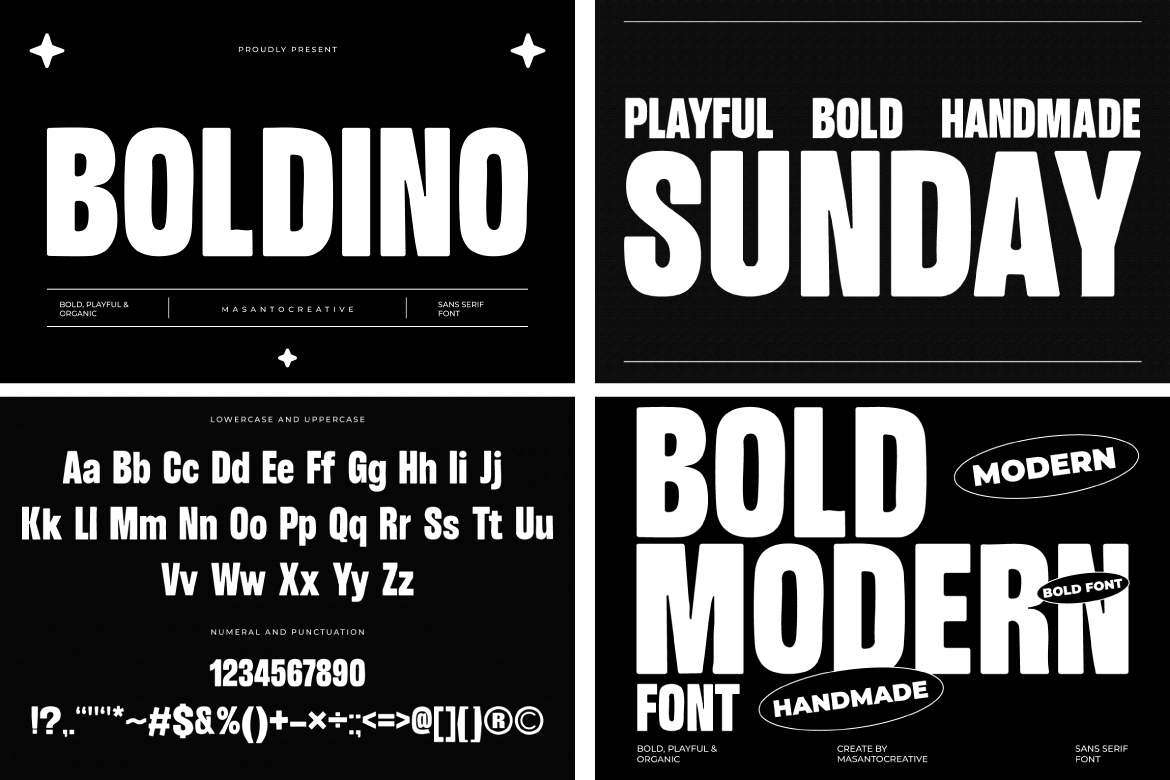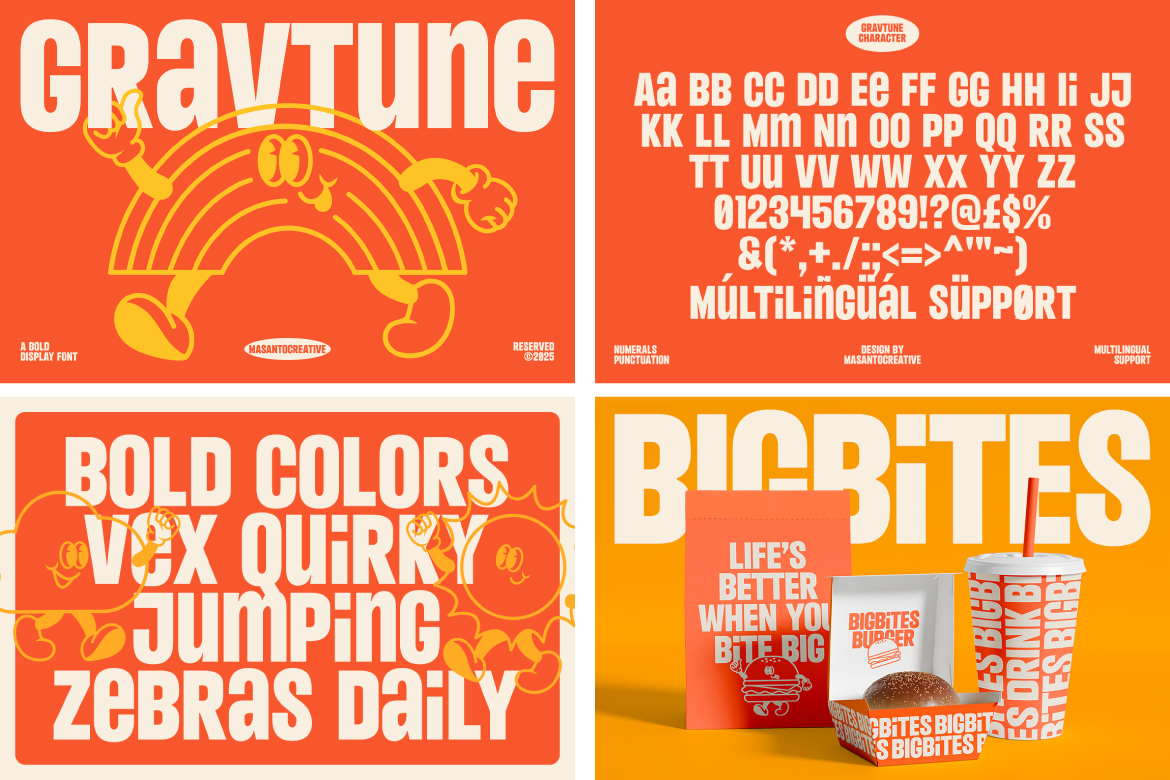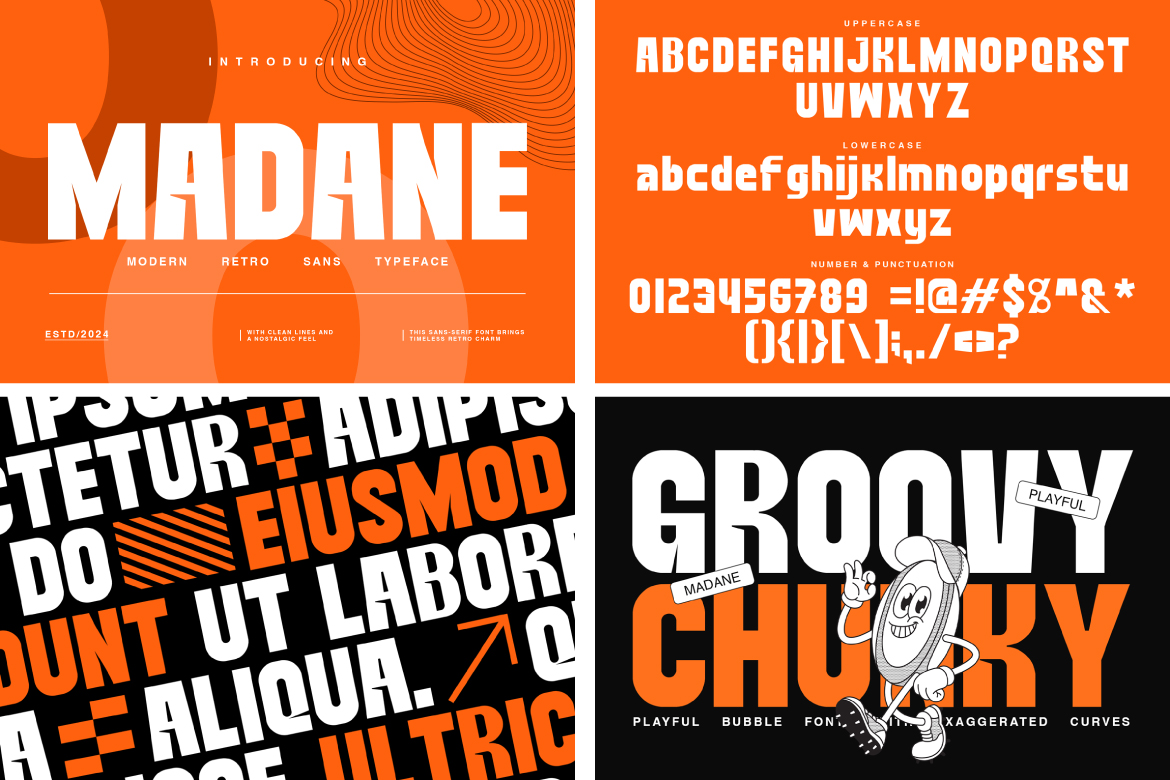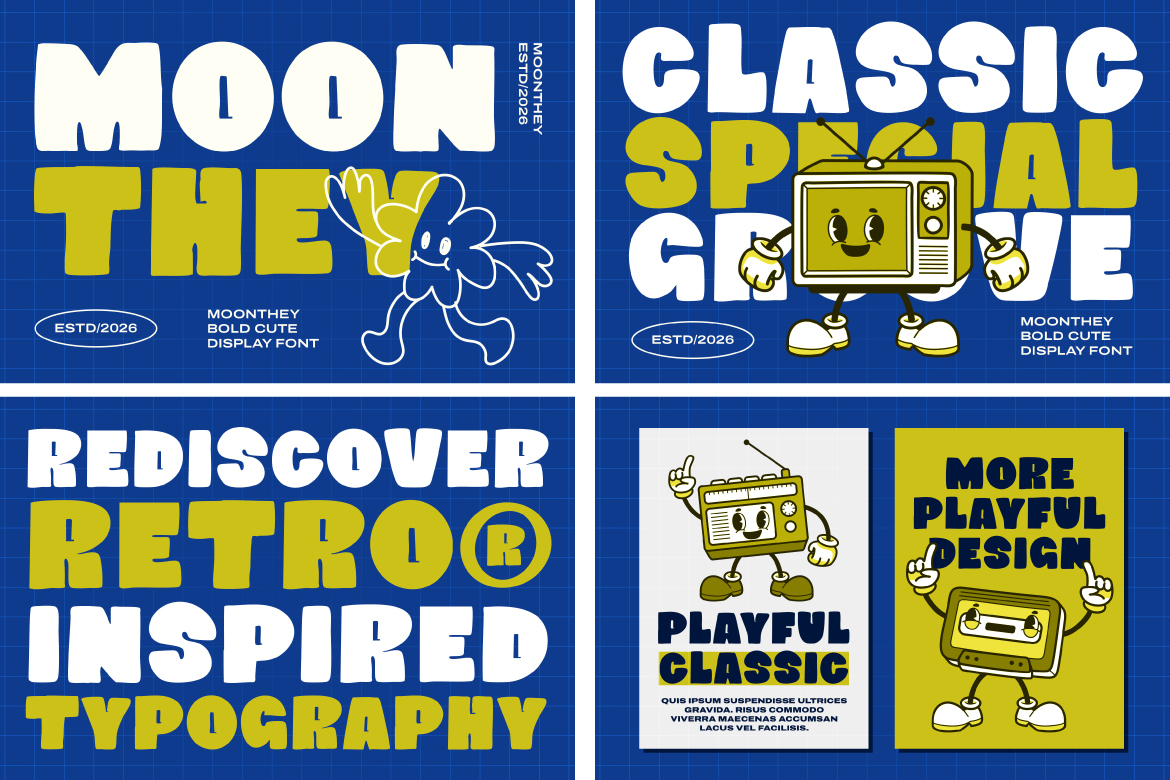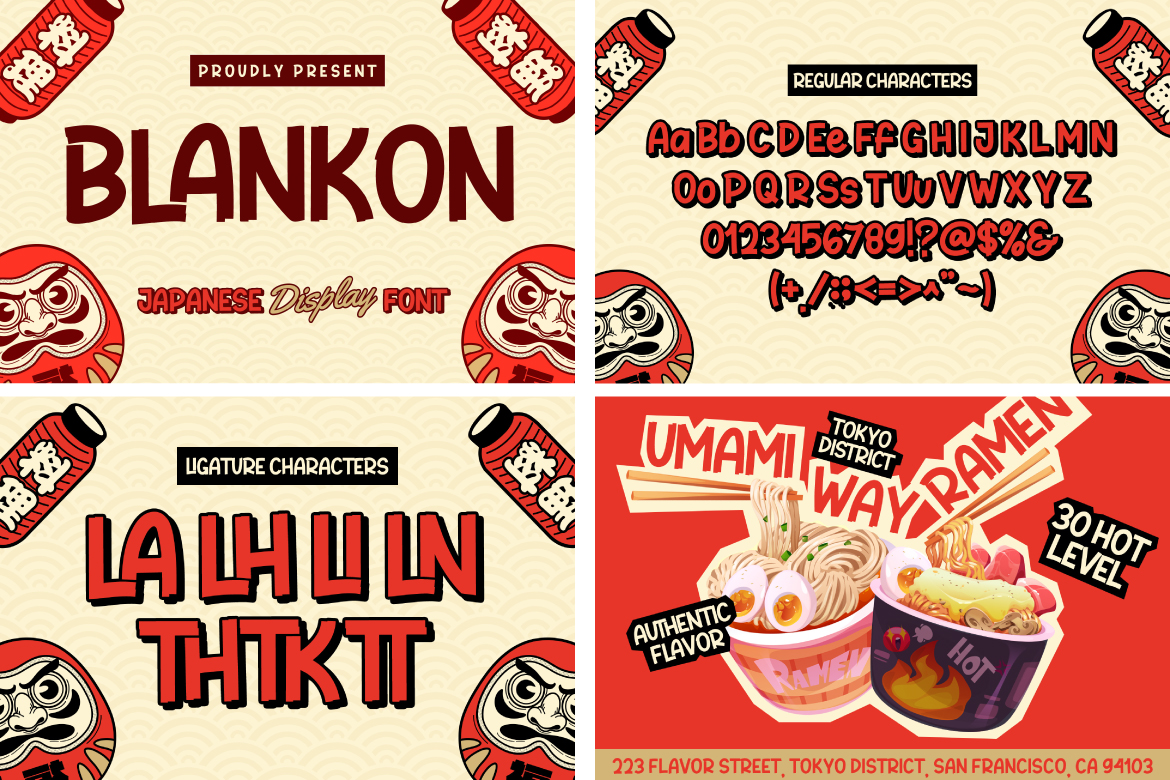
Modern Font Bundle – 6 Bold Typefaces for Logo, Branding & Posters
🌟 Modern Font Bundle – 6 Bold Commercial Typefaces 🌟
This font bundle includes 6 modern, bold display fonts designed to elevate your creative projects with strong typography.
✨ Fonts Included in This Bundle
This bundle includes 6 high-quality display fonts with wide creative usage:
🔹 Gravtune
A bold, playful retro display font with strong personality — ideal for striking headlines, packaging, and fun branding.
🔹 Boldino
A chunky, organic sans serif with a friendly feel — great for branding, signage, posters, and bold titles.
🔹 Madane
A modern retro typeface combining clean shapes with timeless charm — perfect for headlines, logos, and stylish graphics.
🔹 Nebro
A sleek, contemporary sans serif designed for modern branding and editorial designs.
🔹 Blankon
A Japanese-inspired display font with cultural flair — amazing for creative packaging and standout headline designs.
🔹 Moonthey
A bold cute display font with chunky curves — perfect for playful posters, kids’ brands, and fun designs.